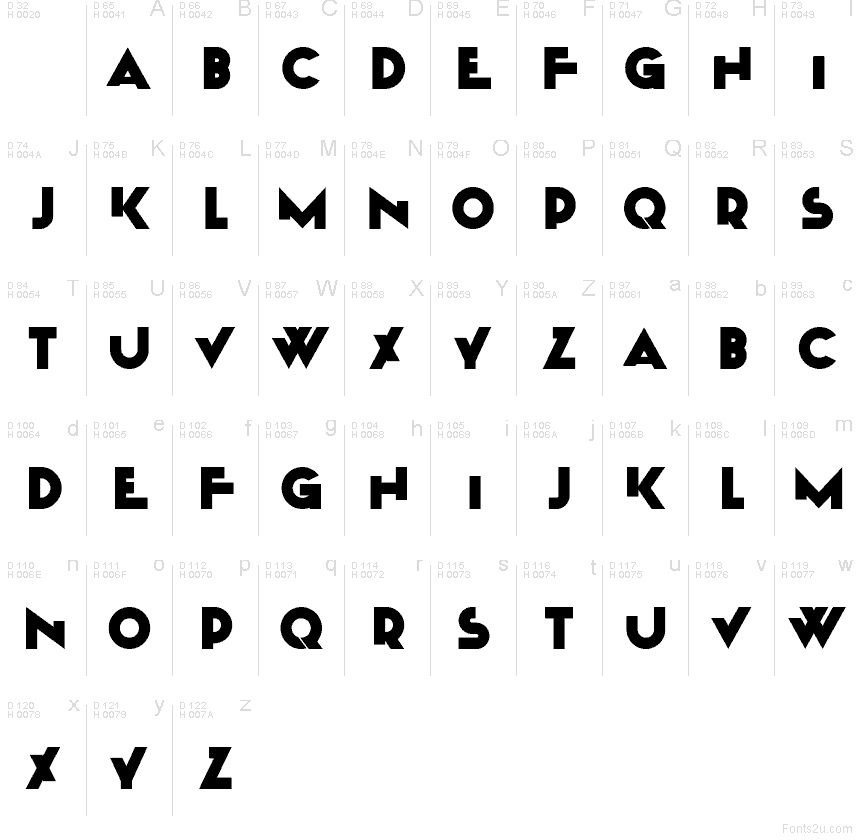
Explosion Book Extravagant Regular
Explosion Book Extravagant font by Vladimir Nikolic is a free geometric display typeface with a bold, theatrical punch. Each letter feels carved from solid black shapes, with sharp diagonal slices and circular counters that create a strong stop‑start rhythm across the line. The Explosion family’s signature look is all about impact: heavy, blocky forms that read instantly, even from a distance, yet still feel playful and modern rather than harsh.
Using Explosion Book Extravagant, your text doesn’t just sit on the page—it hits like a logo every time. This free font shines on posters, book covers, album art, packaging, event flyers, and bold website hero graphics where you need a loud, graphic voice. Keep it large for maximum drama and pair it with a clean, light sans serif for body copy to let those chunky, sliced letters really stand out.